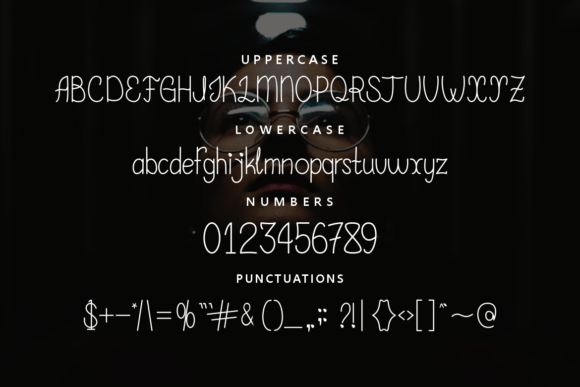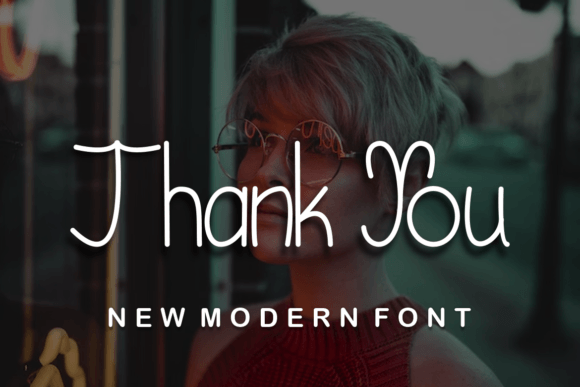
Jamskaili Font
About Jamskaili Font
**Jamskaily**: *Where Lovely Elegance Meets Modern Beauty*
Jamskaily is more than just a font; it’s a lovely handwritten gem that seamlessly blends beauty, class, elegance, and modernity. Meticulously designed to elevate a wide variety of projects, this font effortlessly infuses a sense of contemporary elegance and charm into your designs, making it the perfect choice for a diverse range of creative endeavors.
What sets Jamskaily apart is its remarkable ability to seamlessly combine lovely vibes with modern beauty. The font’s carefully crafted characters exude an air of authenticity and sophistication, making it an ideal choice for projects that require a touch of uniqueness and a high level of impact. Jamskaily is the font that can effortlessly enhance your signature, stationery, logo, wedding materials, typography quotes, magazine or book covers, website headers, clothing designs, branding, packaging, and much more, ensuring they shine with a distinct sense of style and modernity.
Jamskaily strikes the perfect balance between contemporary aesthetics and timeless charm, making it a versatile and invaluable choice for projects that aim to impress and captivate.
In signature designs, Jamskaily adds a unique sense of character and loveliness, making them even more memorable and engaging. For branding and logo design, the font’s modern elegance enhances the visual appeal of your content, making it more captivating and impactful. Whether you’re working on digital or print projects, Jamskaily brings an air of modern beauty and lovely elegance to your creative work.
One of Jamskaily’s most remarkable qualities is its adaptability. It can seamlessly transition from a relaxed and friendly tone to a more expressive and striking one, making it suitable for a wide range of creative applications. Its ability to evoke lovely vibes and modern beauty ensures that it remains a cherished choice for designers and creators across diverse industries.
In summary, Jamskaily is more than just a font; it’s a design asset that masterfully combines loveliness with modern beauty. Its unique blend of lovely characters and contemporary charm positions it as an indispensable tool for anyone seeking to infuse their creative projects with a touch of style and sophistication. Embrace the lovely elegance and modern beauty of Jamskaily, and watch your designs come to life with ease and artistic flair, impressing in any context and captivating your audience with its distinctive and charming presence.